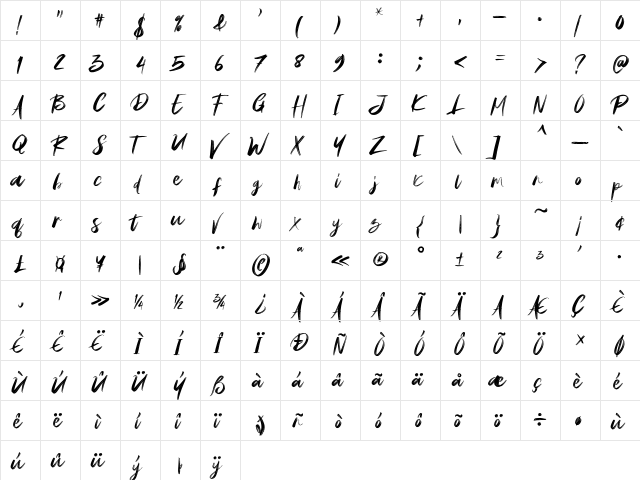
Amstagram Regular
Design Context for Amstagram Typeface
Amstagram is a composed and adaptable typeface that performs quietly and consistently across a wide range of design contexts.